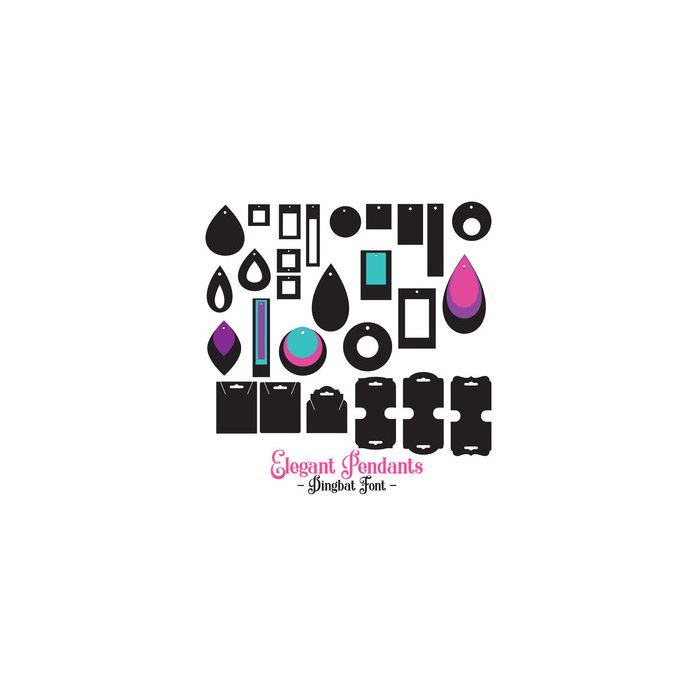
Elegant Pendants Dingbat Font. Contains individual pendant elements that can be used alone or layered and 6 backer cards with euroslot at the top. Base shapes are allocated to upper and lower case with layering pieces allocated to numbers. All can be accessed via glyphs. My other fonts can be found here in the Silhouette store.